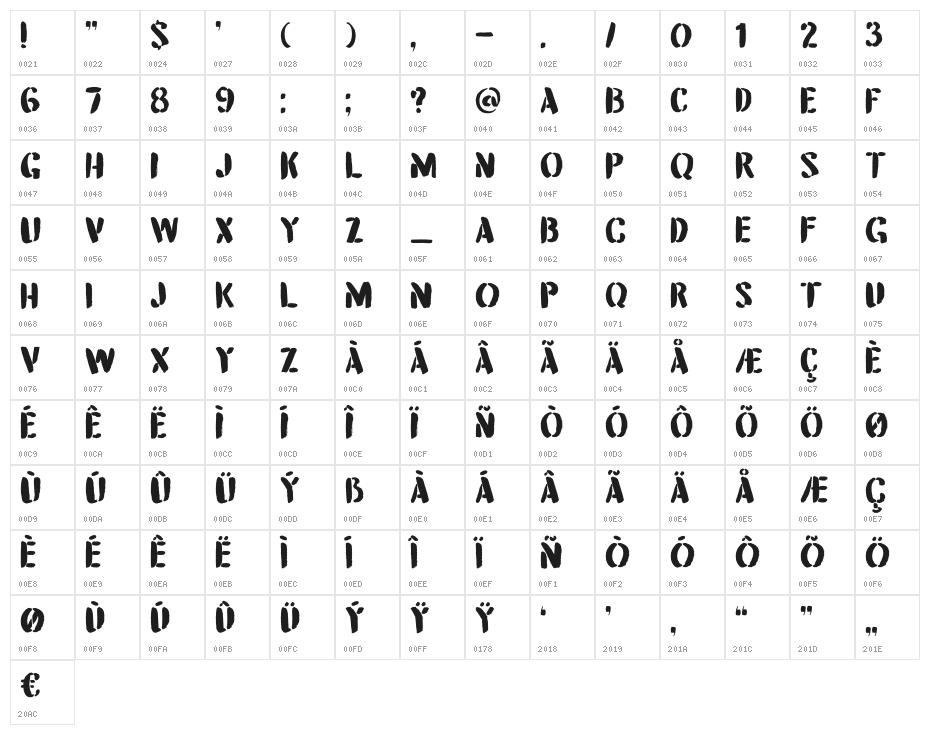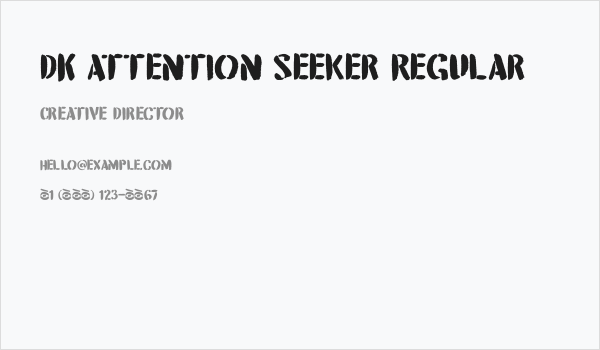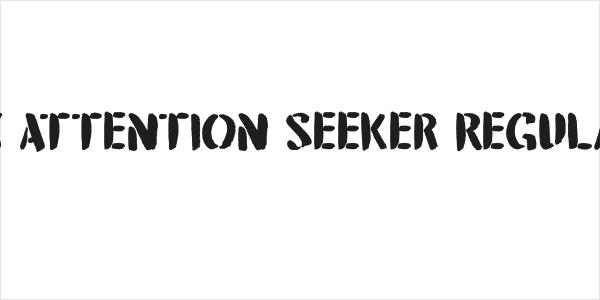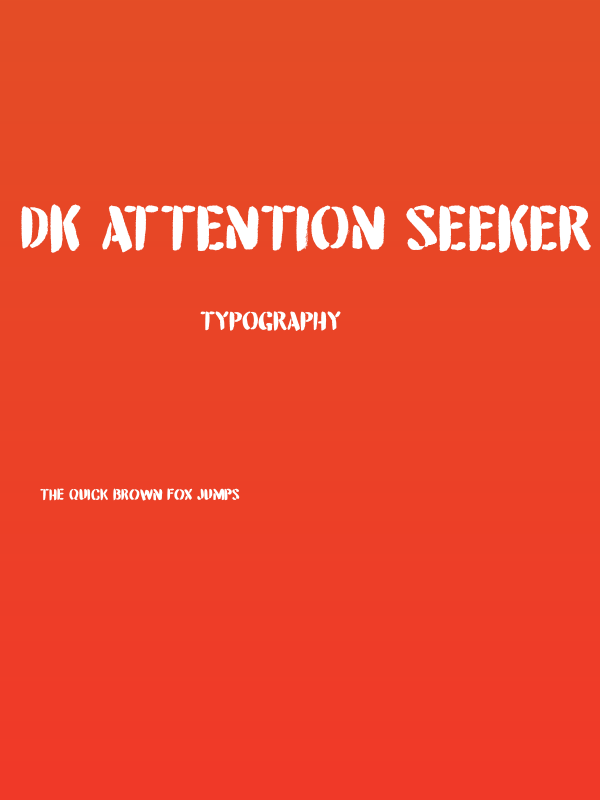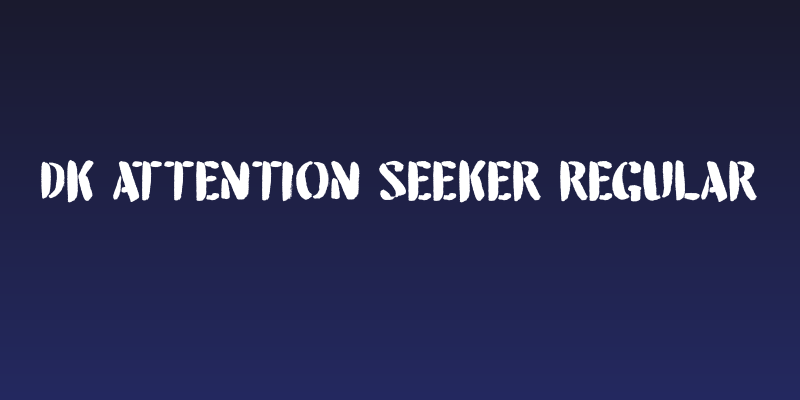
DK Attention Seeker Regular Font
DK Attention Seeker Regular Description
This font features a bold and expressive style with thick, brush-like strokes that create a sense of movement and energy. The characters are uniquely crafted with irregular edges, giving them a hand-painted appearance. The uppercase and lowercase letters maintain a consistent weight, while the numbers and special characters follow the same dynamic design. This font is perfect for projects that require a strong visual impact and a touch of artistic flair.
| Overall Style | Modern, Artistic |
| Use Case | Headlines, Posters, Branding |
| Proposed Projects | Ideal for posters, headlines, branding, and artistic projects that need a bold statement. |